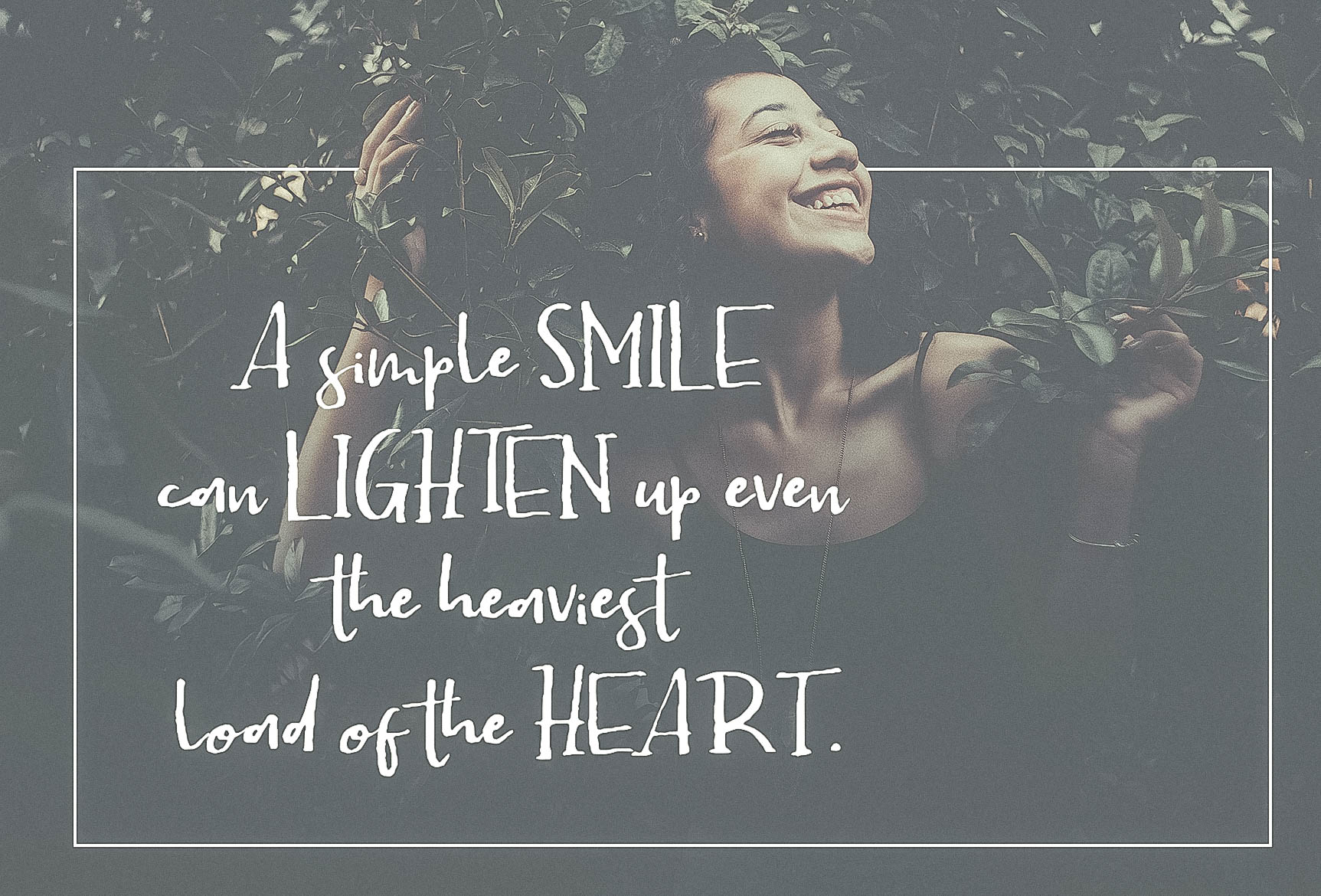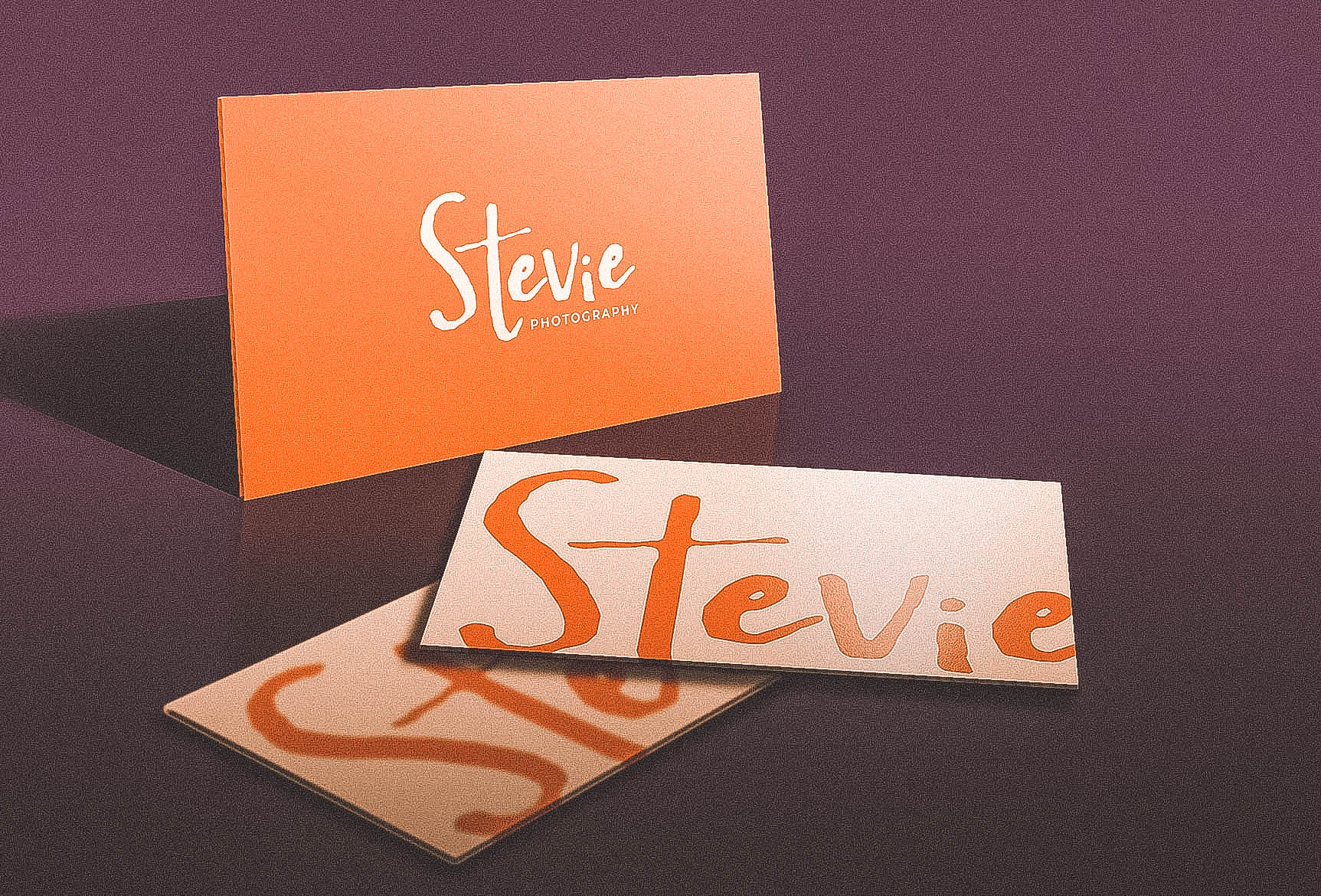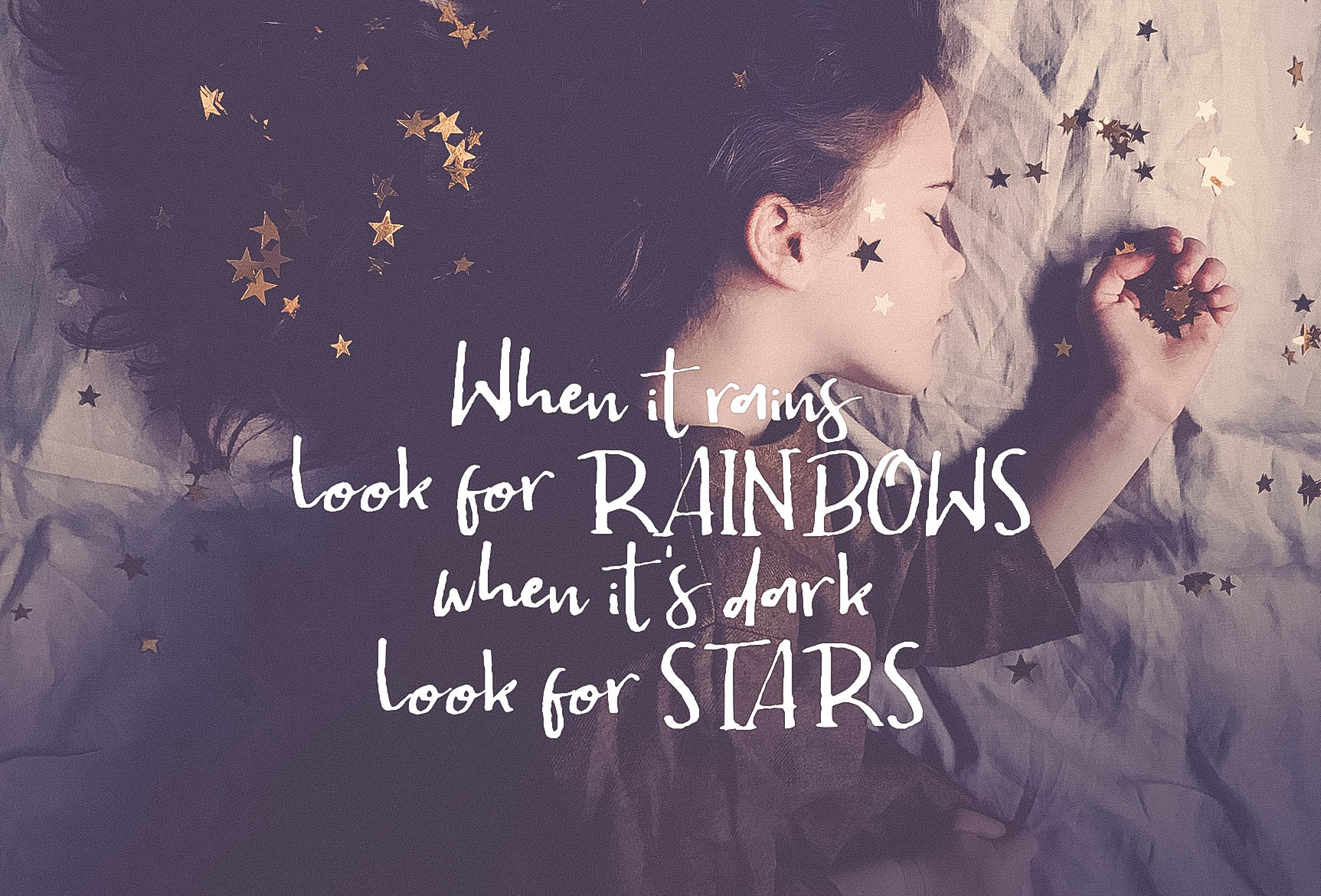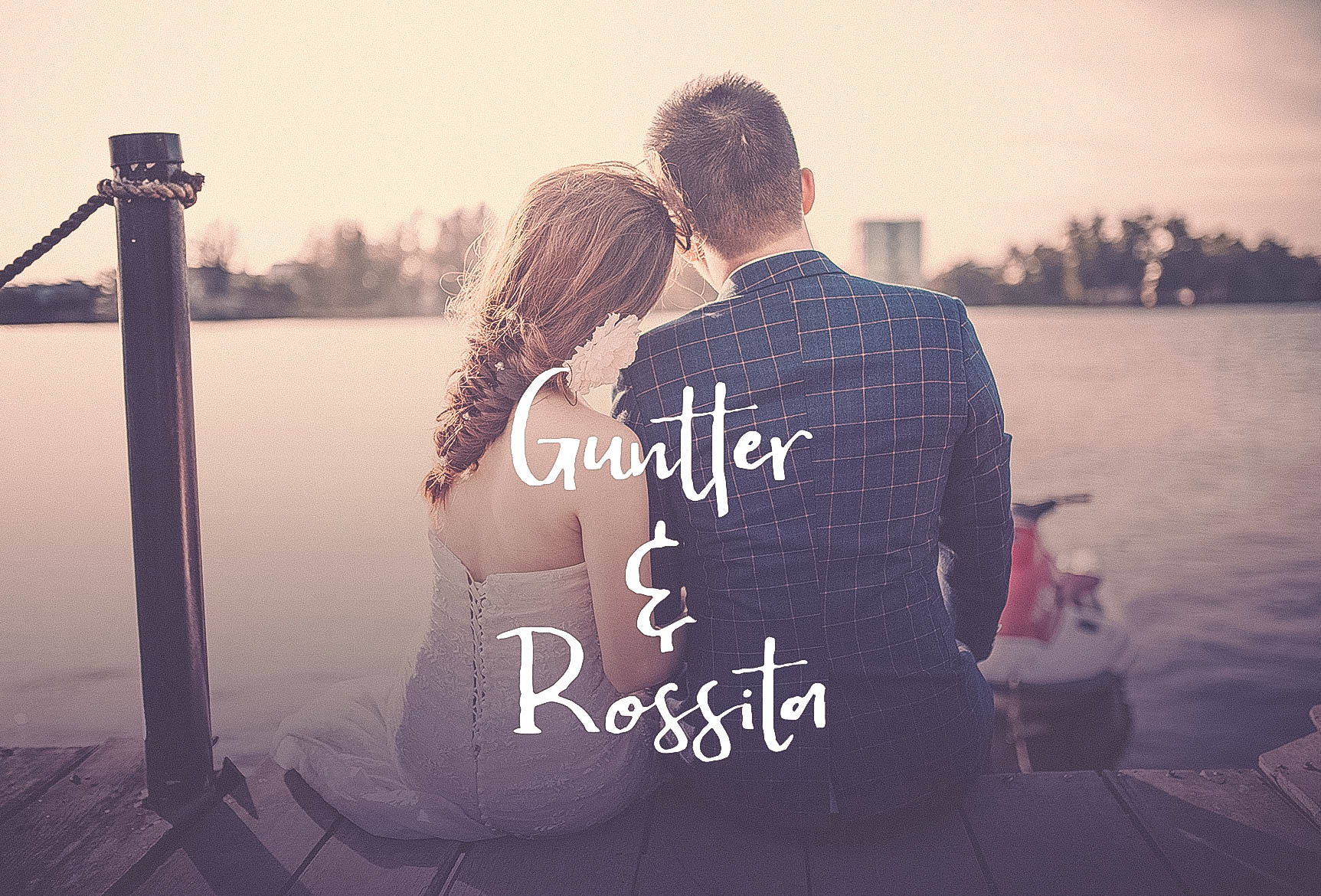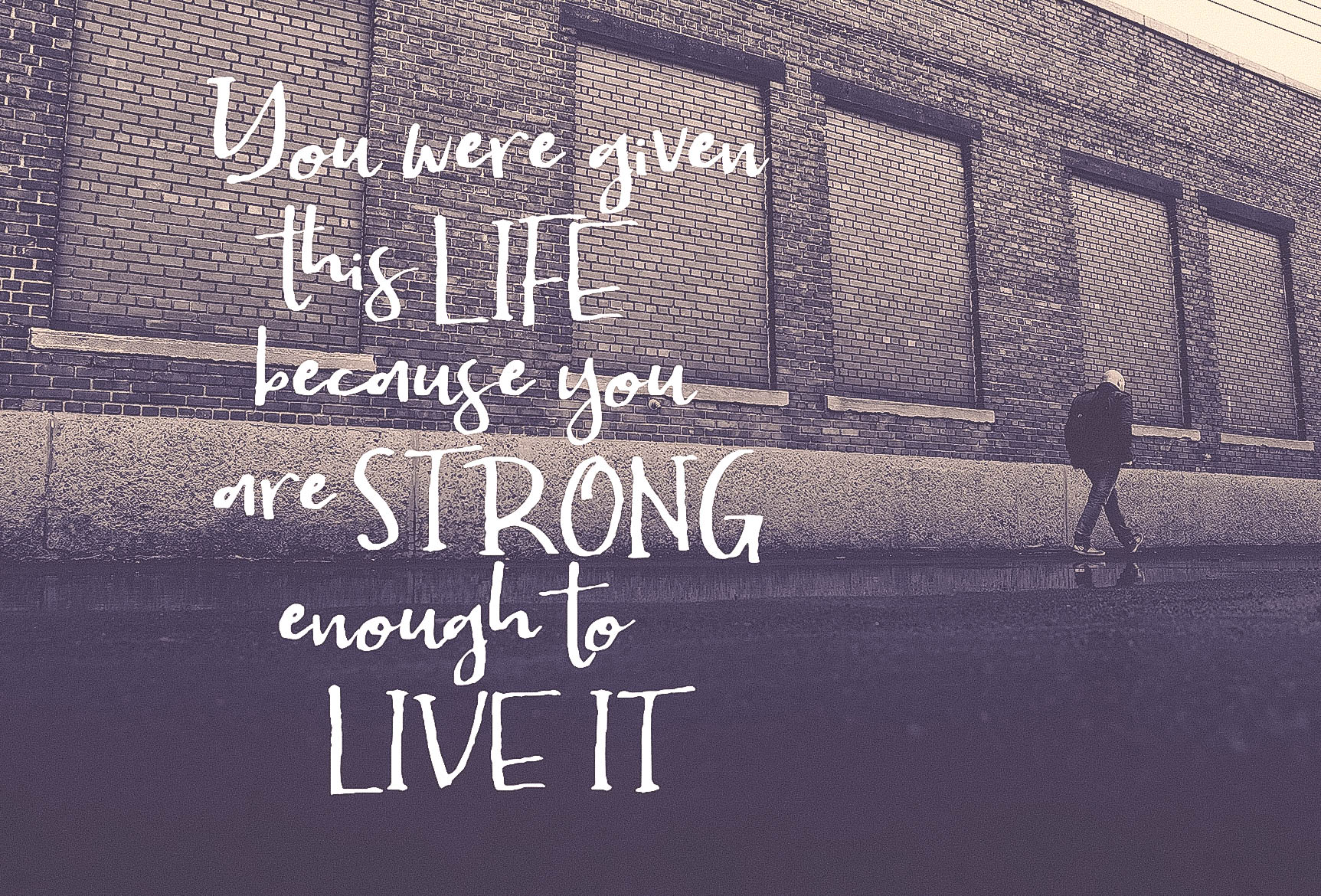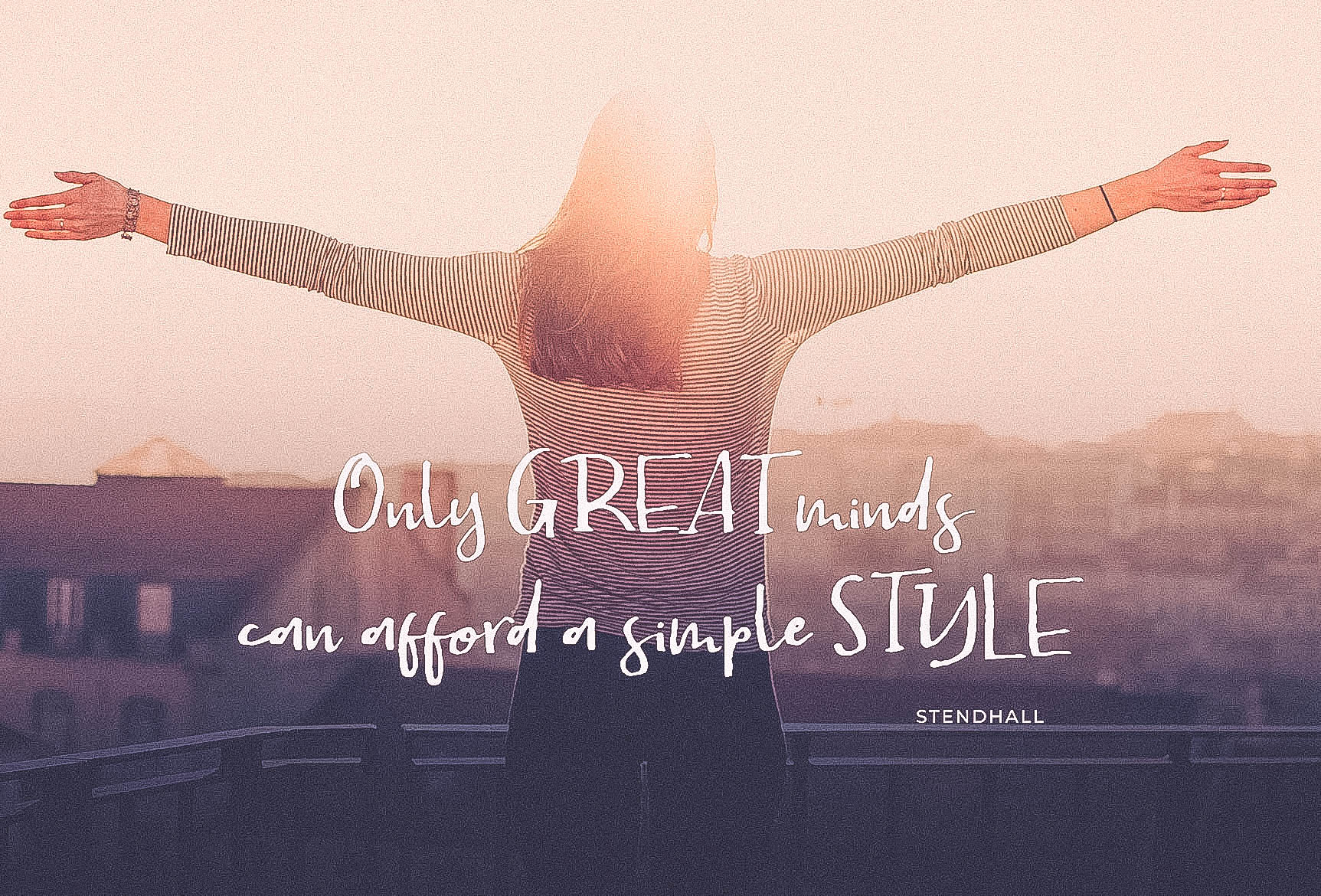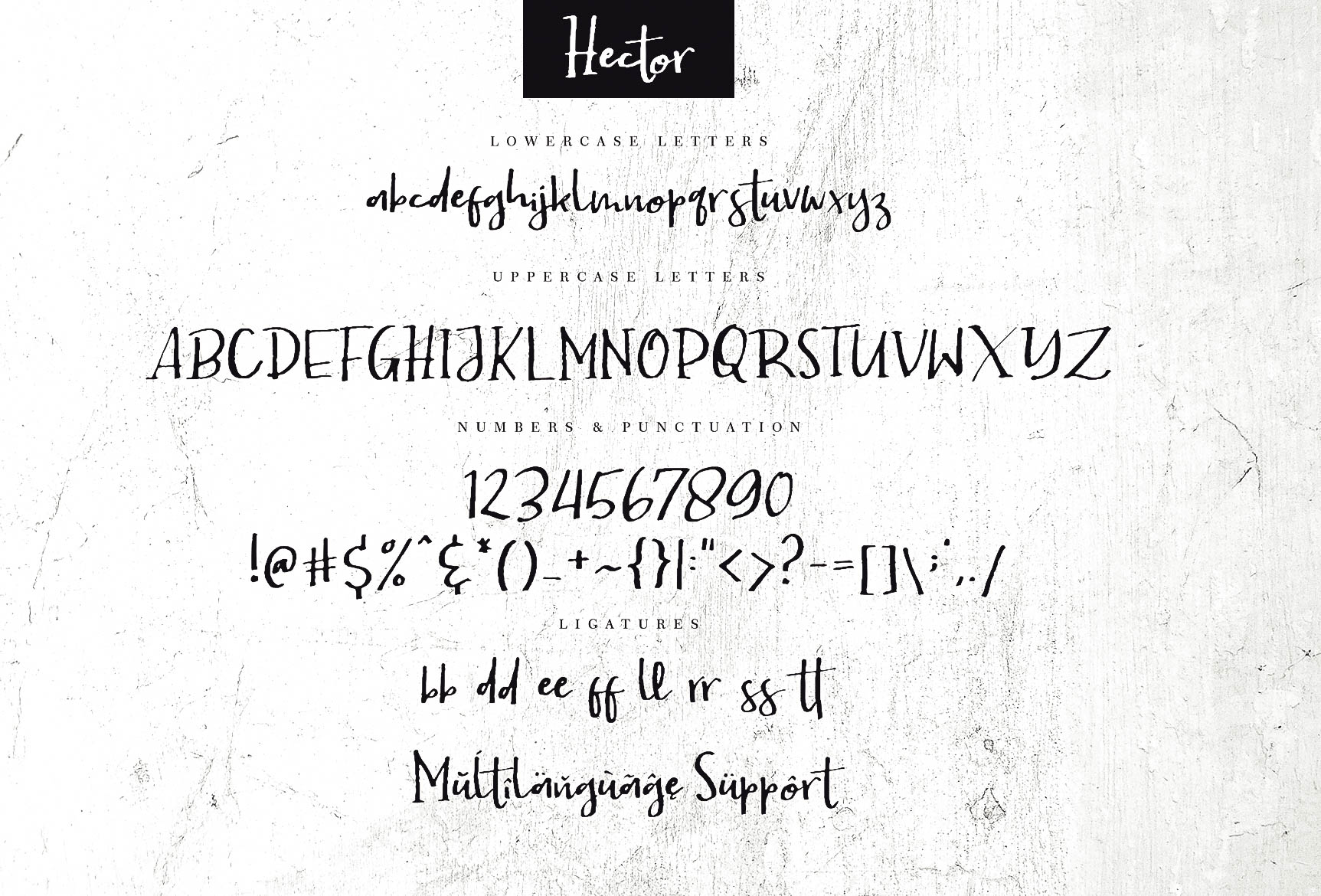
Hector Font
About Hector Font
Hector is a stunning and whimsical handwritten font, ideal for use in a wide range of friendly designs. This font allows you to create stunning and easy hand-lettered looking projects in an instant!